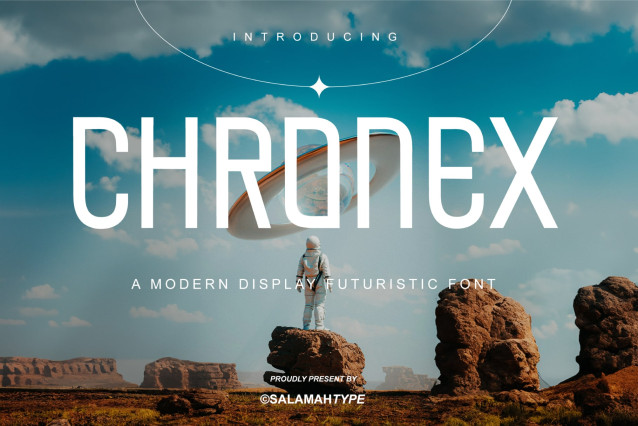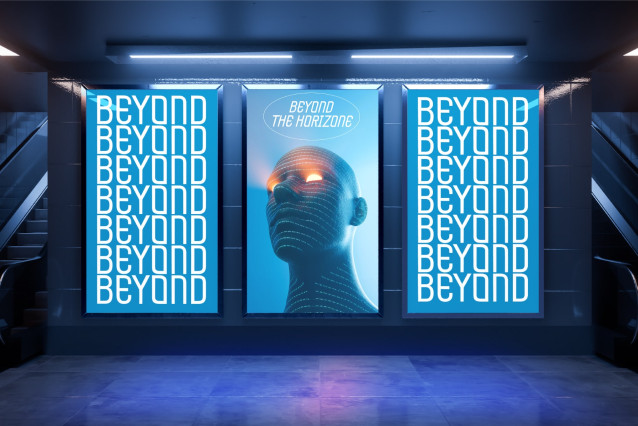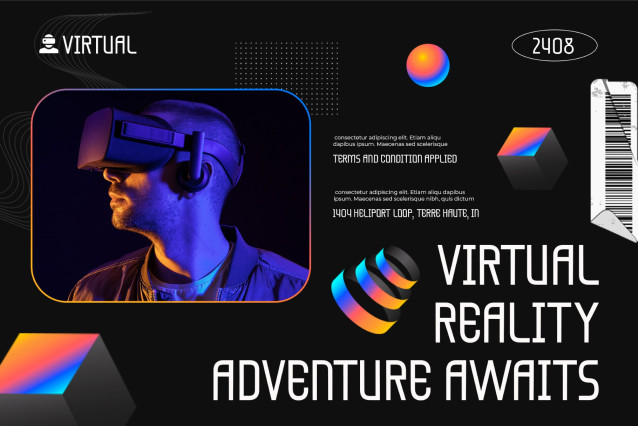
Chronex – Digital Future Font
Chronex is a bold and sleek futuristic display font designed for modern projects that demand innovation and style. With its sharp lines, geometric curves, and clean structure, Chronex is perfect for sci-fi themes, space exploration designs, tech branding, gaming, and digital interfaces.